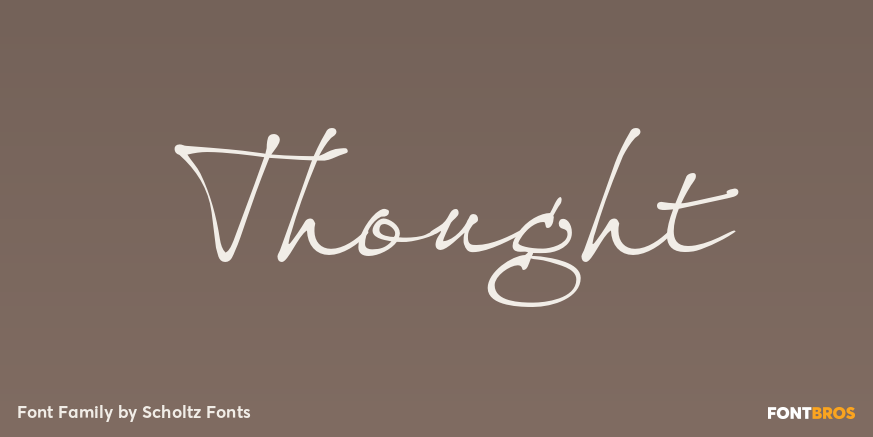
Thought
About Thought
Thought, with its versatile five styles, is ideal for contemporary display work. It has style, flair, legibility, and interesting, flowing letter shapes. Thought has not been designed to be used in ?ALL CAPS?. The best effects for headings and subheads…